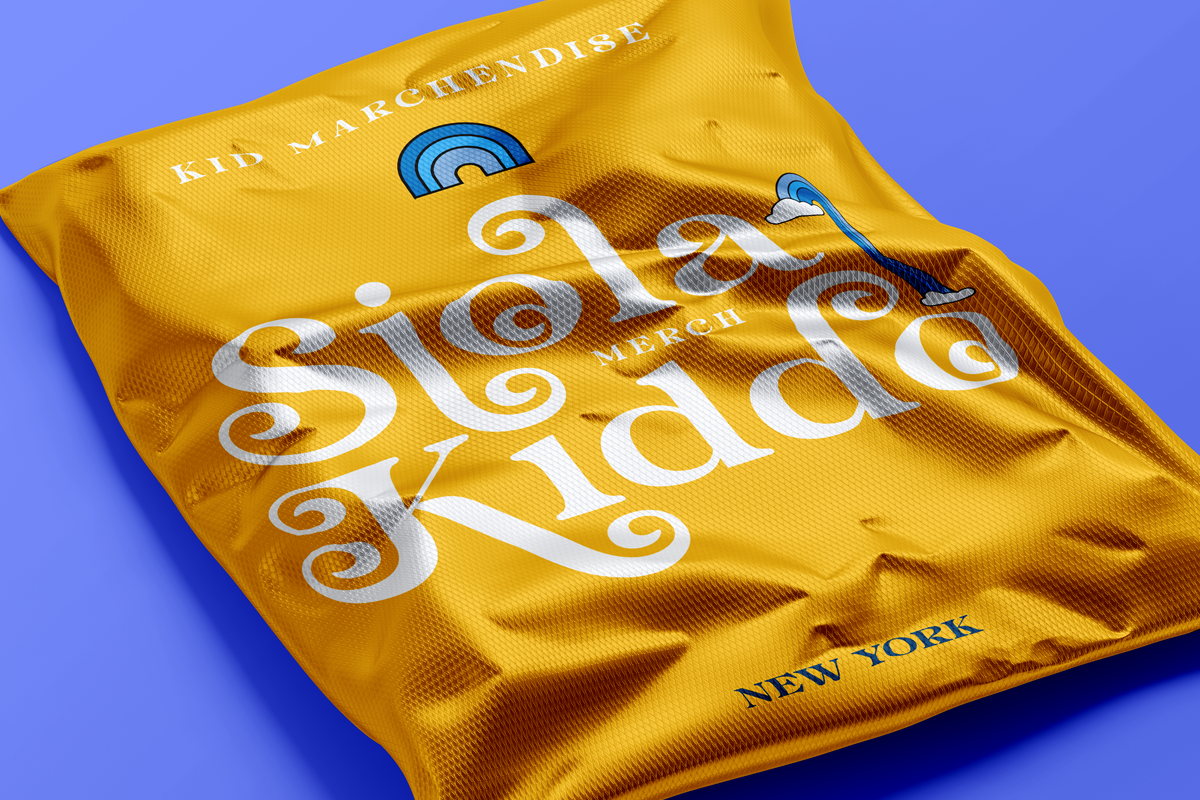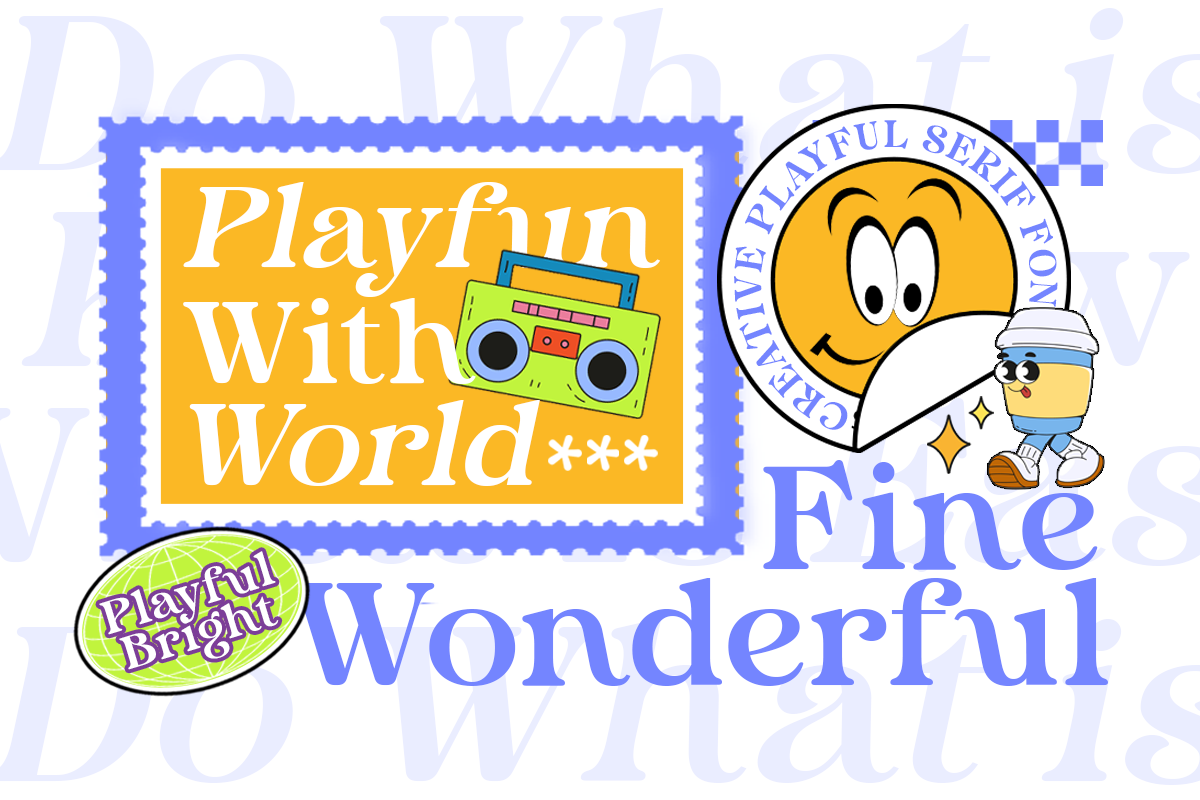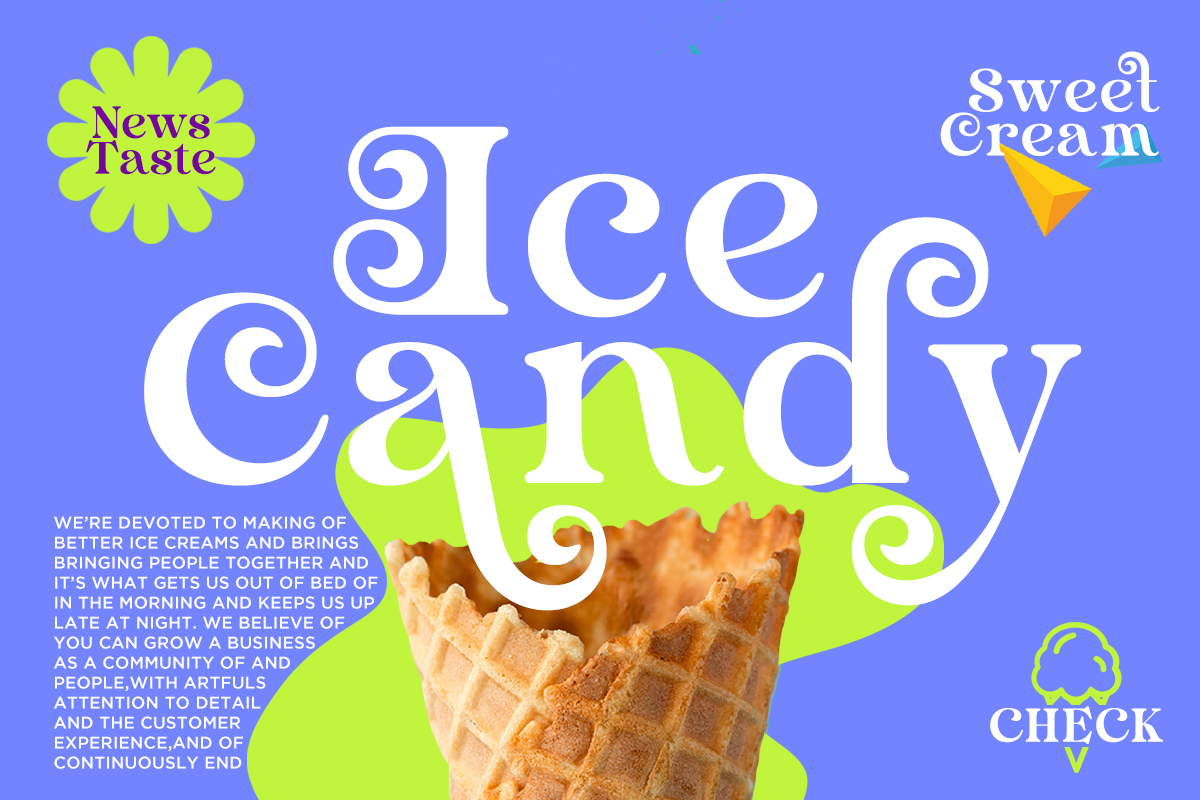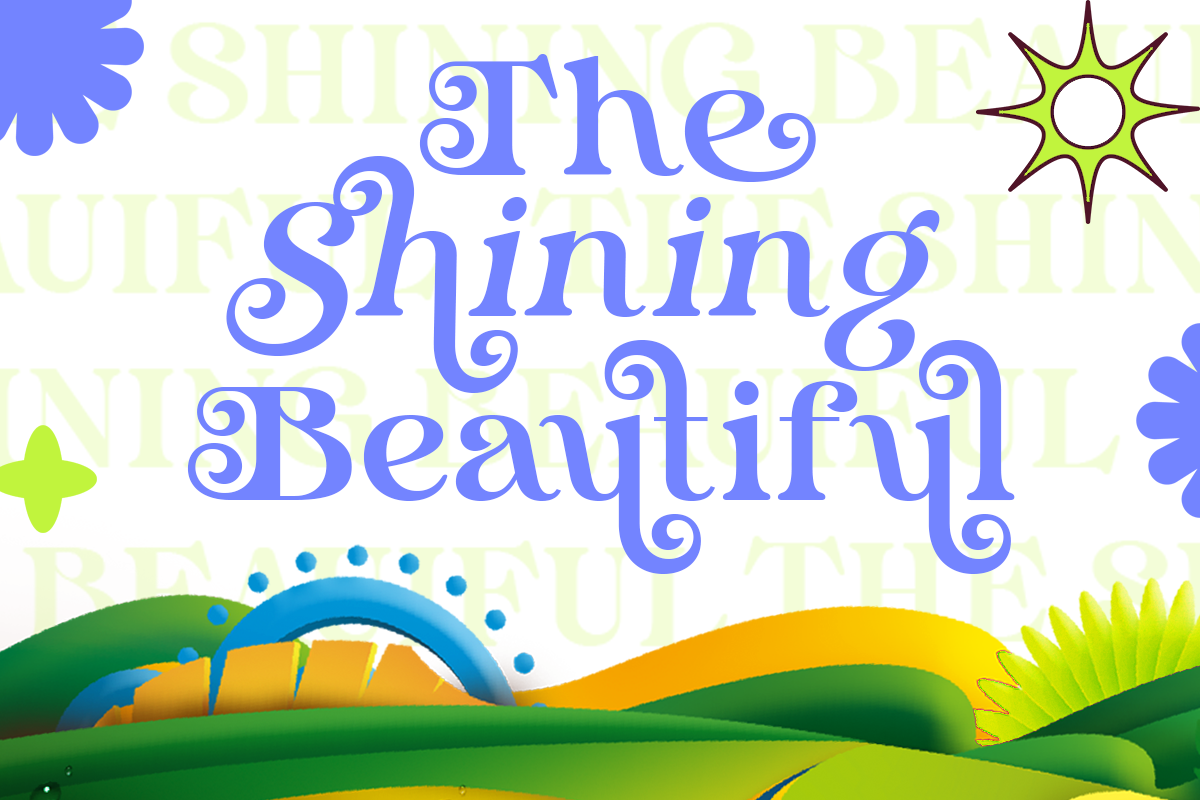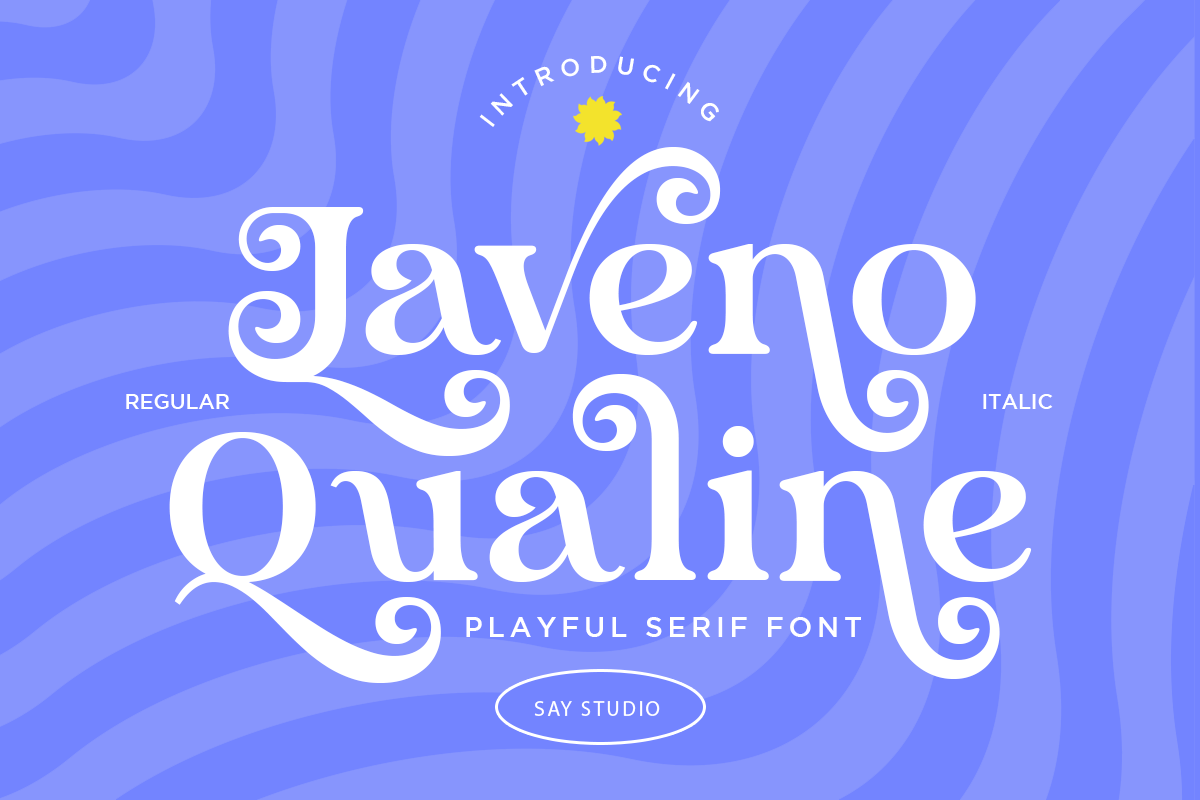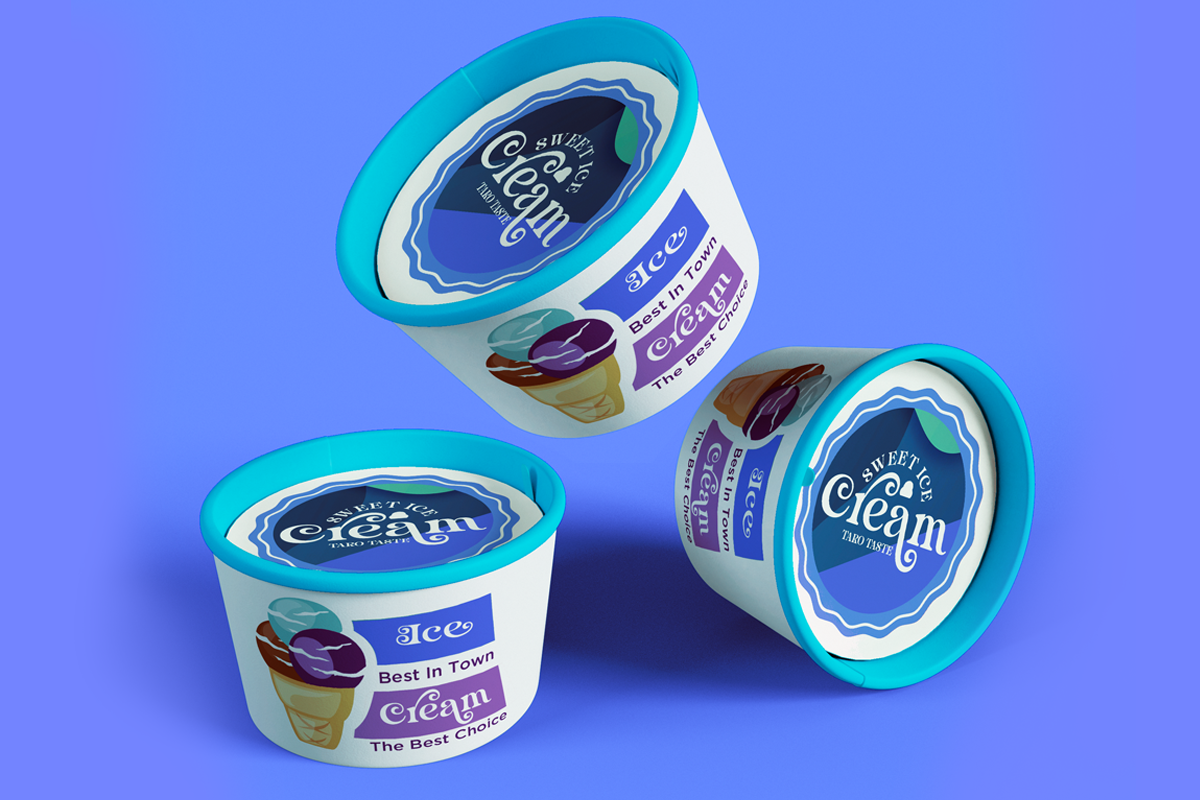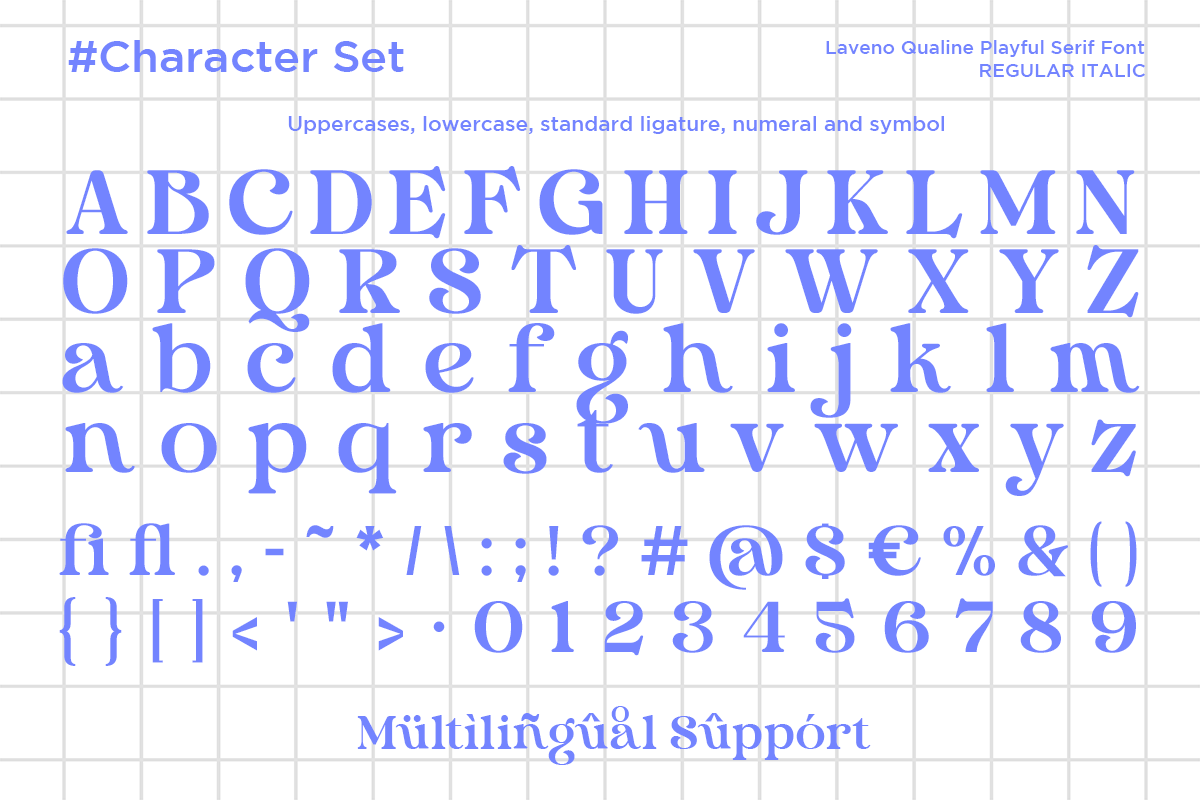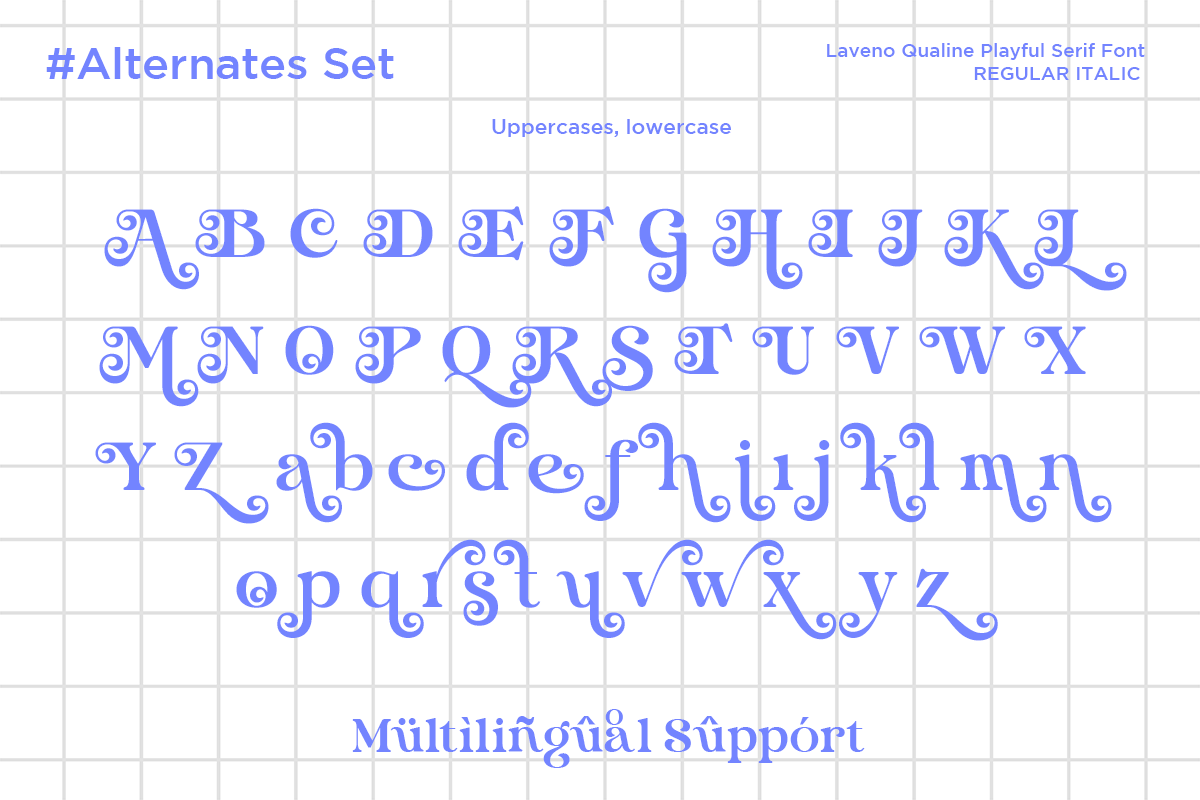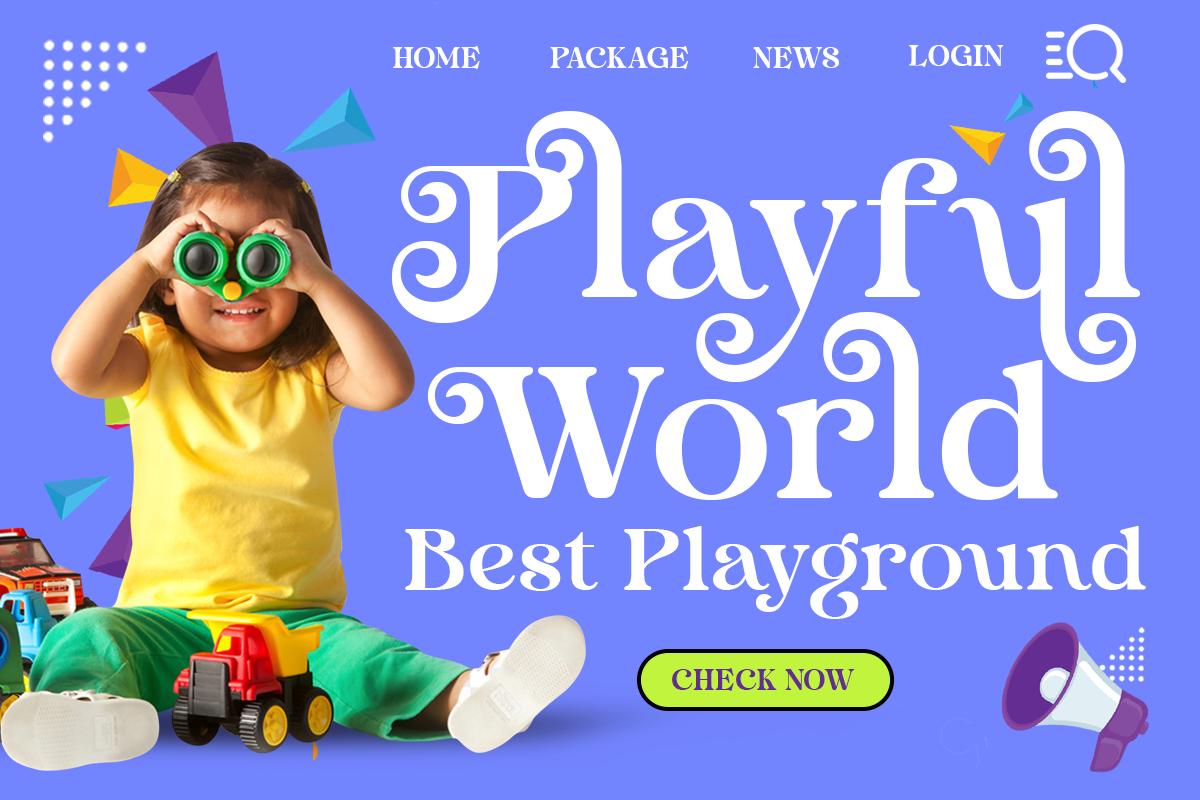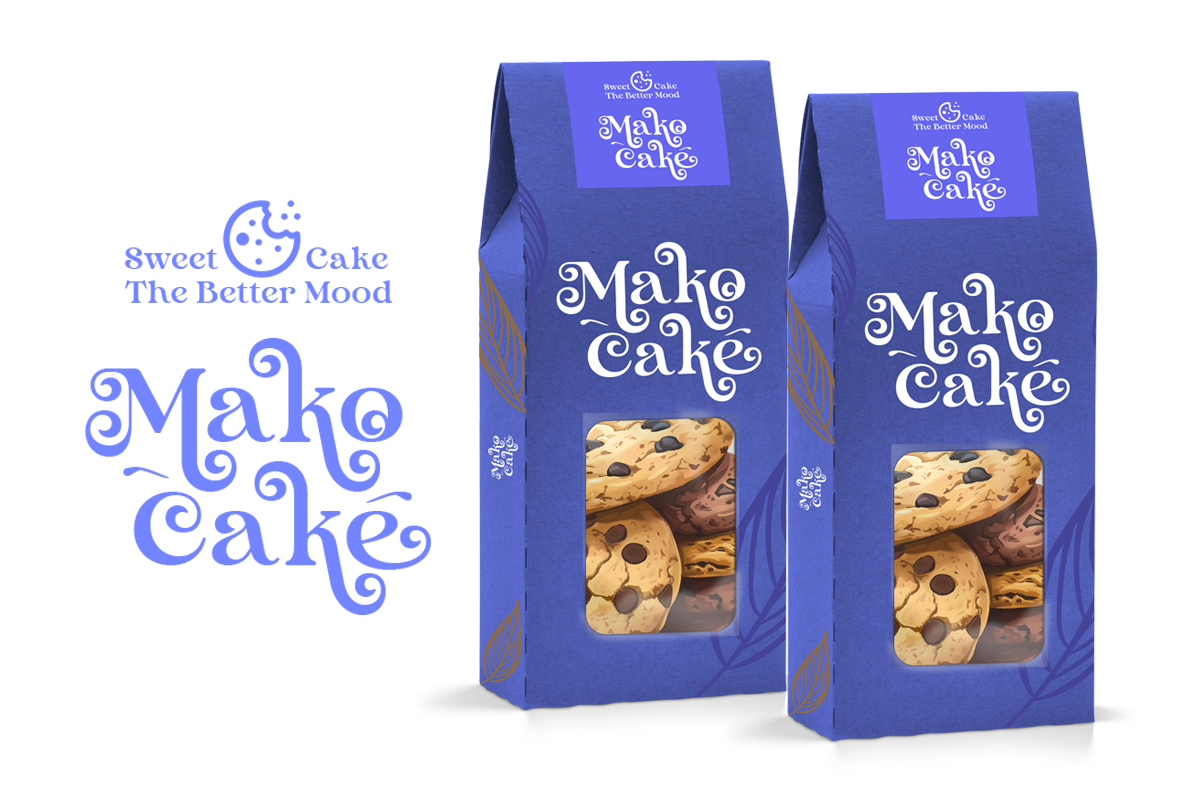
Laveno Qualine - Playful Serif Font
Laveno Qualine is a playful serif font with elegant swashes and decorative curves. Designed to bring joy and personality, this font works beautifully for headlines, logos, branding, packaging, invitations, editorial layouts, and creative typography projects. Its unique character makes it perfect for designs that need a charming, expressive, and stylish touch.